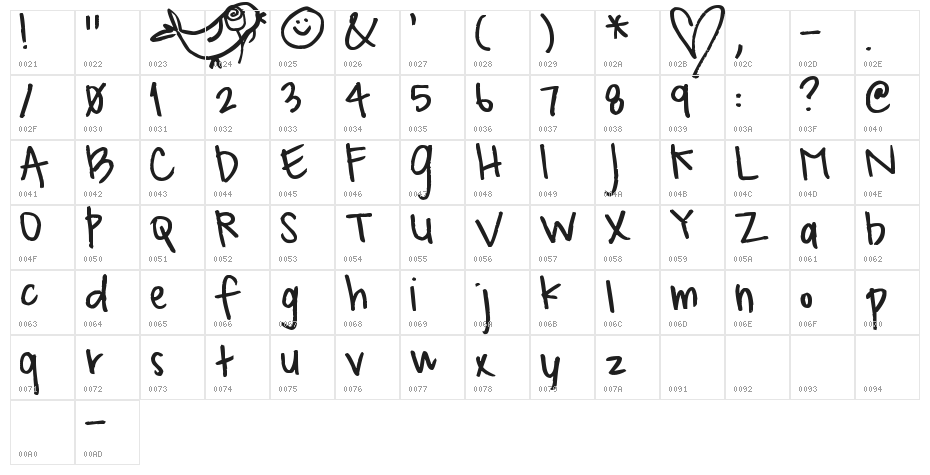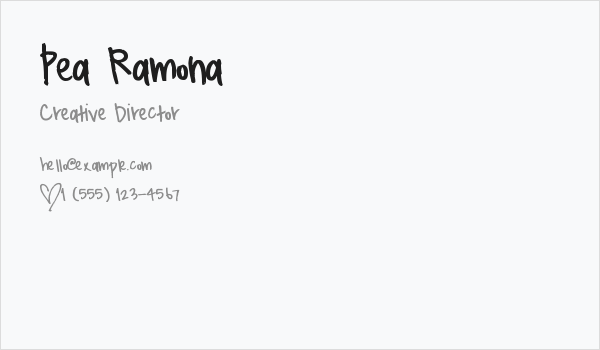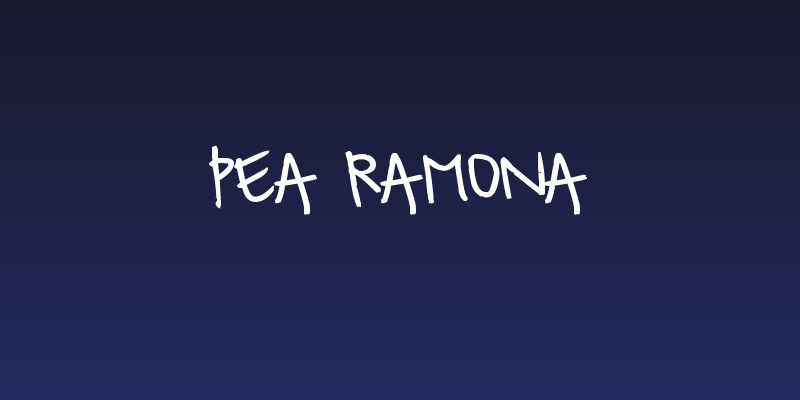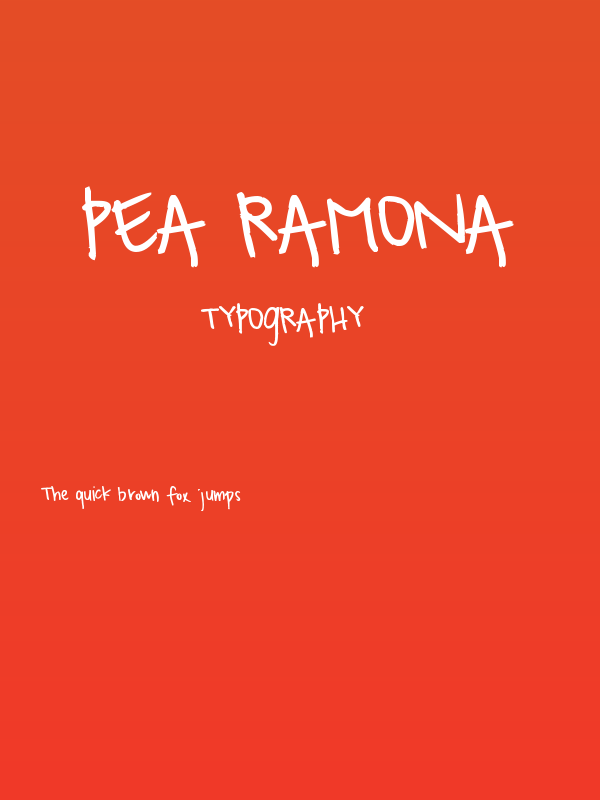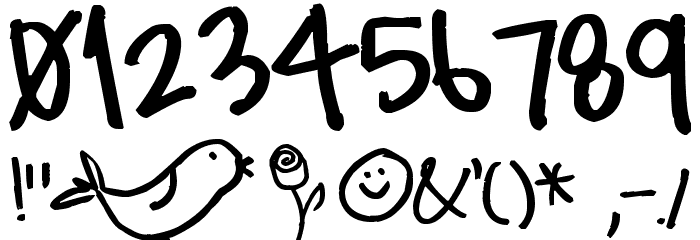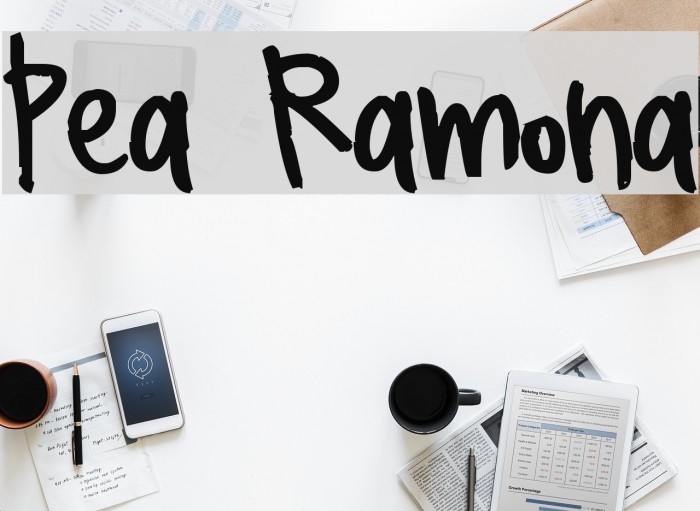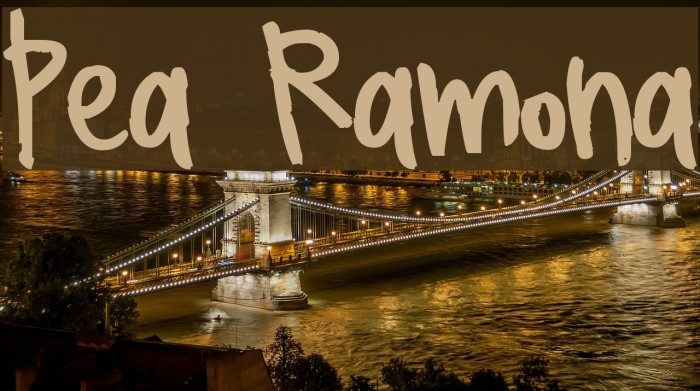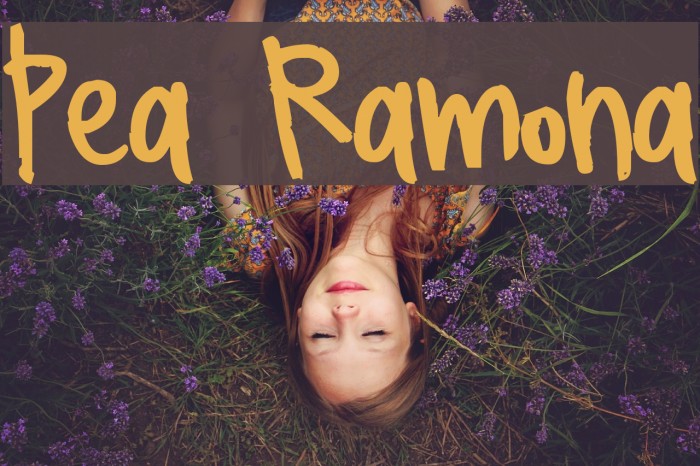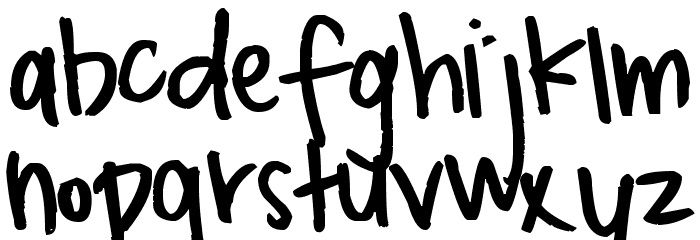
Pea Ramona Font
Pea Ramona Description
This playful and whimsical handwritten font exudes a casual and friendly vibe. The characters are crafted with a natural, free-flowing style, giving them a personal touch that resembles authentic handwriting. The strokes are bold and slightly uneven, adding to the charm and uniqueness of the font. The uppercase and lowercase letters are well-balanced, maintaining a consistent look throughout. The numbers and special characters are designed with the same playful spirit, making this font ideal for creative projects. Its informal style is perfect for adding a personal touch to any design.
| Overall Style | Casual, Playful |
| Use Case | Logos, Headlines, Informal Text |
| Proposed Projects | Ideal for greeting cards, personal invitations, children's books, and playful branding. |